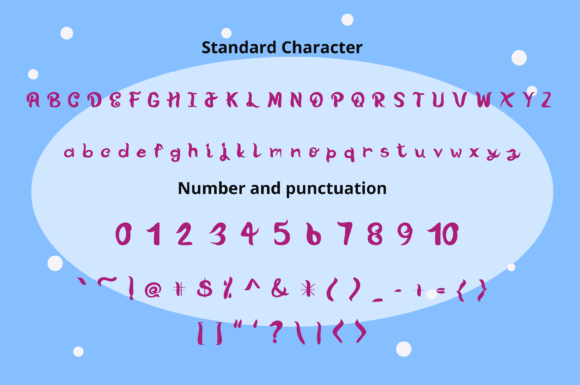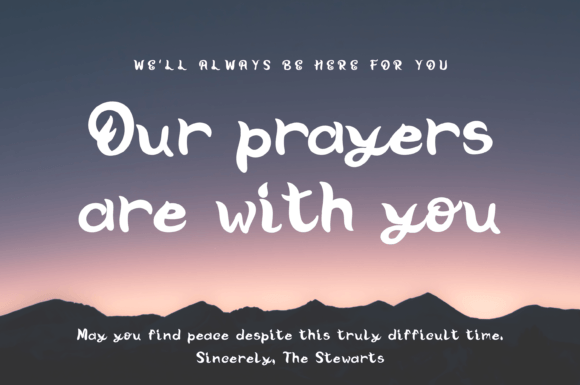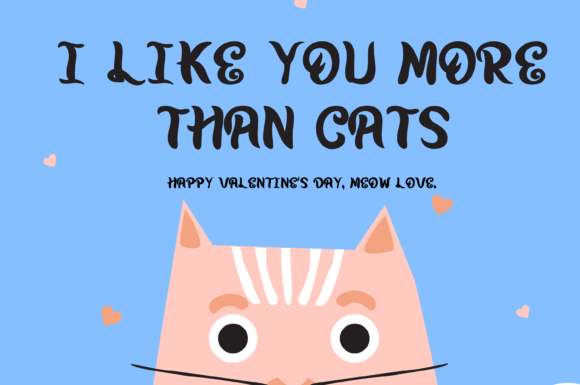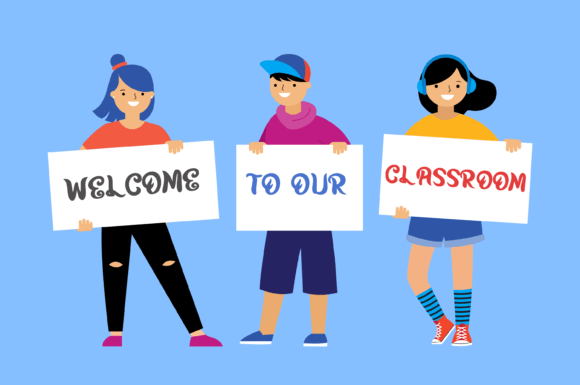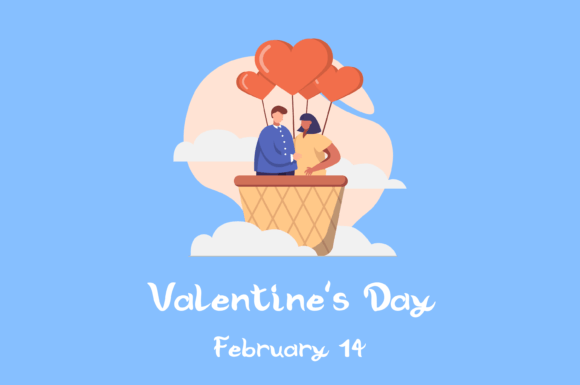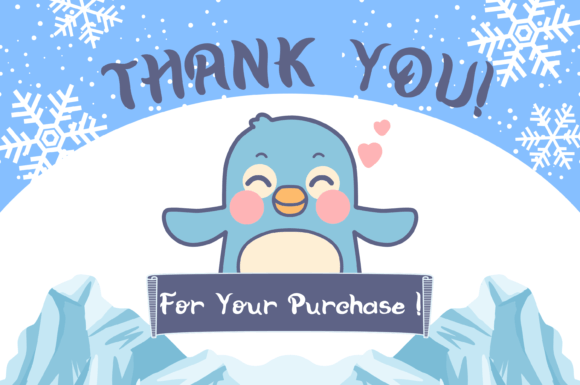
Introduction to Romance Memories Font
Romance Memories is a whimsical and playful handwritten font.
It can easily be matched to an incredibly large set of projects, so add it to your creative ideas, and notice how it makes them stand out .
Key Features of Romance Memories Font
Why Choose Romance Memories Font?
Romance Memories Font offers exceptional quality and versatility, making it a valuable addition to your design toolkit. Whether you’re creating for personal projects or commercial use, Romance Memories Font delivers professional results.